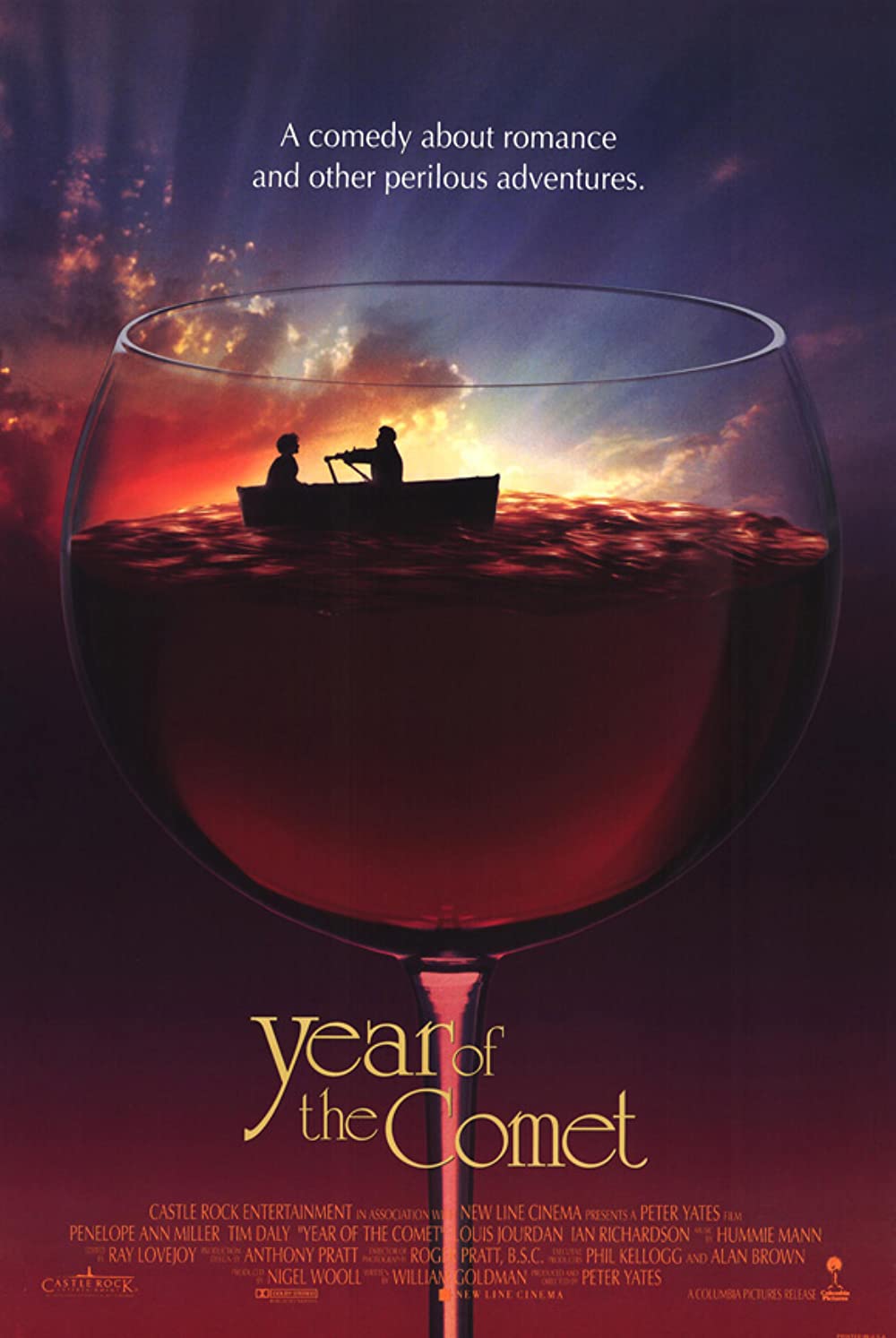
Year of the Comet Font
AdventureYear of the Comet is a 1922 romantic comedy adventure film, directed by Peter Yates. The story follows a wine expert and an art restorer who must race against time and rival treasure hunters to locate the rarest bottle of wine in history.
The Year of the Comet title on the poster is probably set in University Roman. Designed by Phillip Kelly and Mike Daines, it has been widely used since its introduction by Letraset in 1972.